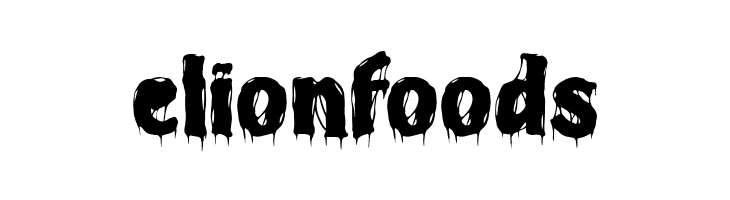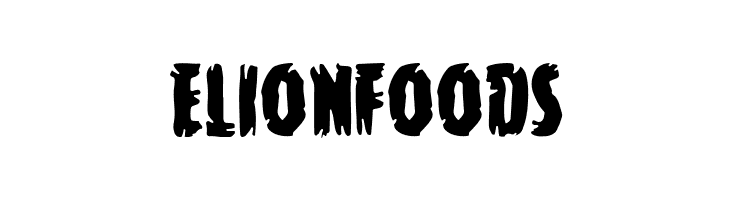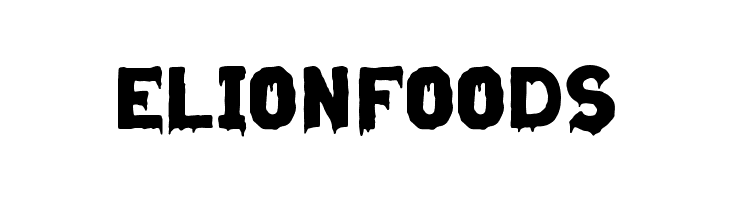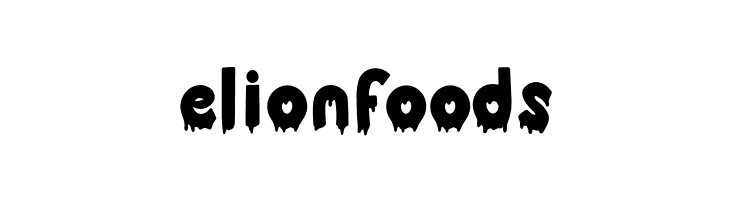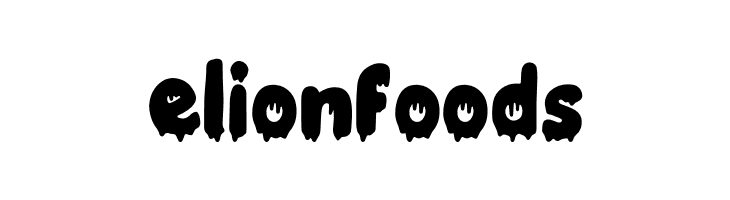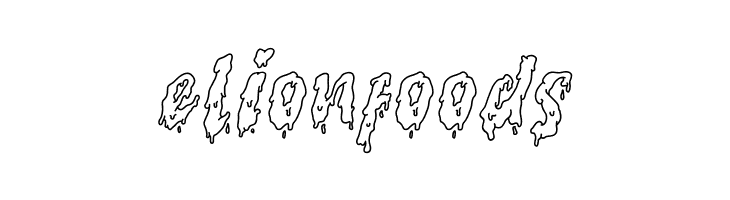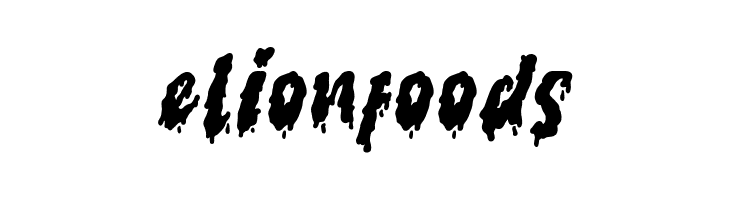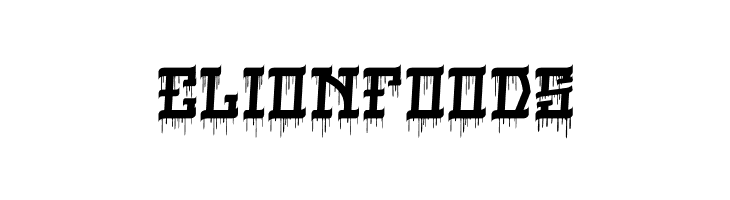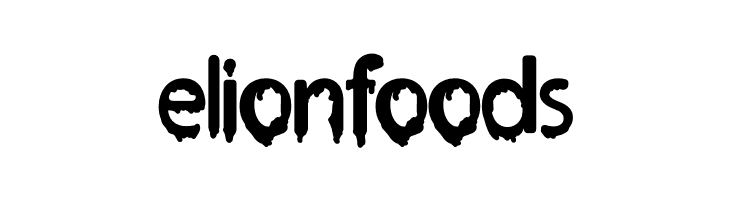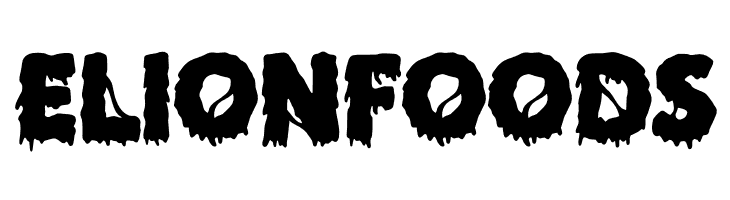
A spooky, dripping font perfect for Halloween themes.
A spooky, dripping font ideal for Halloween themes.
A spooky, dripping font perfect for horror themes.
A chilling, horror-themed font with jagged, dripping characters.
A dripping, horror-themed font with a playful, eerie design.
A bold, dripping font with a dramatic and eerie style.
A bold, graffiti-inspired font with a distinctive dripping effect.
A bold, jagged font with a horror-themed, dripping effect.
A bold, dripping font with a horror-themed aesthetic.
A bold, dripping font perfect for spooky or horror-themed designs.
A spooky, dripping font ideal for Halloween themes.
A spooky, dripping font perfect for Halloween themes.
A spooky, dripping font ideal for Halloween themes.
A spooky, dripping font perfect for horror themes.
A bold, dripping font with a liquid-like, dramatic style.
A bold, horror-themed font with dripping, jagged edges.
A chilling, jagged font ideal for horror-themed designs.
A bold, dripping font with a spooky, playful aesthetic.
A playful, spooky font with dripping, bold characters.
A bold, dripping font with a playful and spooky style.
A bold, dripping font perfect for horror-themed designs.
A bold, dripping font ideal for horror themes and eerie designs.
A dripping, outline-style font with a playful and eerie appearance.
A bold, dripping font with an eerie, fluid appearance.
A bold, dripping effect font with a playful and creative style.
A bold, gothic font with a dripping effect, perfect for horror themes.
A bold, dripping font with a slimy, liquid-like appearance.
A bold, dripping font with a horror-inspired, fluid design.
A spooky, dripping font ideal for horror themes.
A spooky, slime-inspired outline font with a playful, eerie aesthetic.
A bold, spooky font with a dripping slime effect, ideal for Halloween themes.
A bold, dripping font with a horror-inspired aesthetic.
A bold, horror-themed font with dripping, eerie characters.
A bold, dripping font with a spooky, liquid-like appearance.